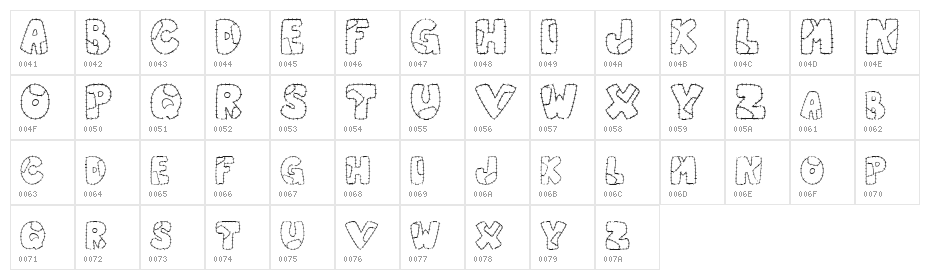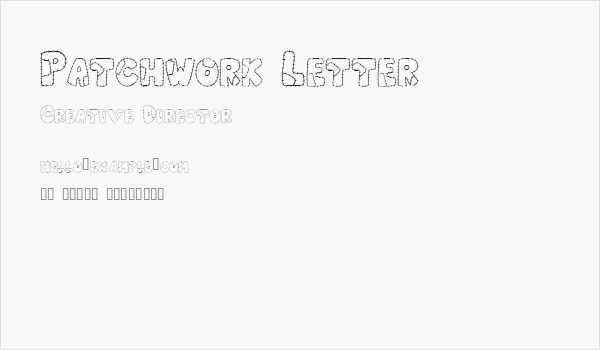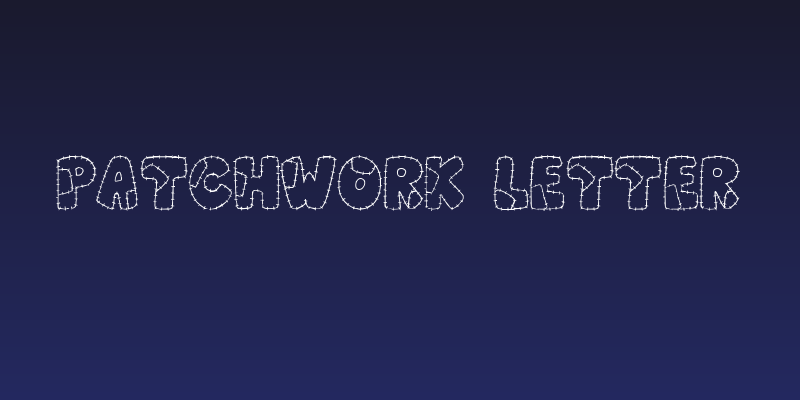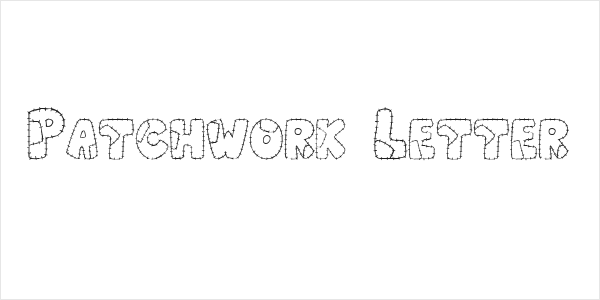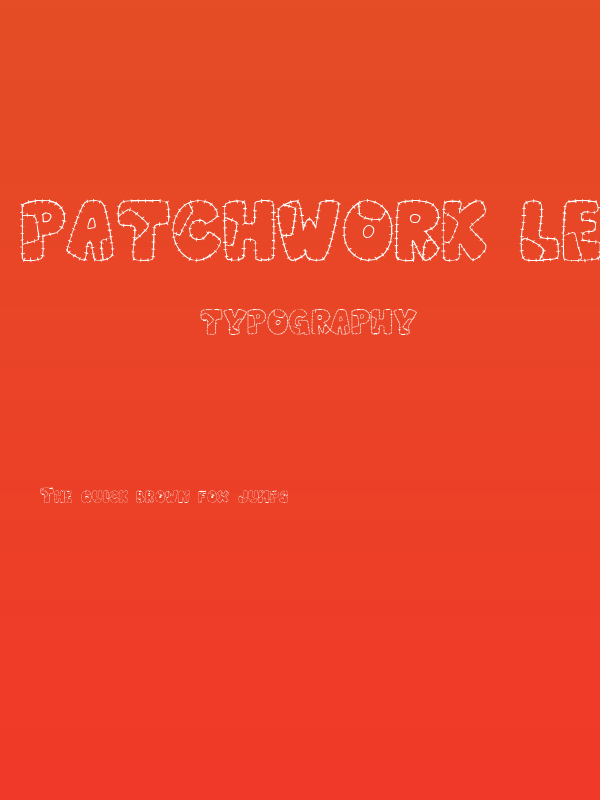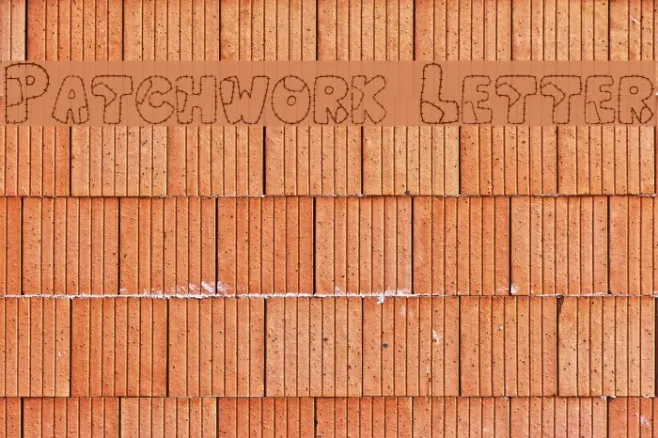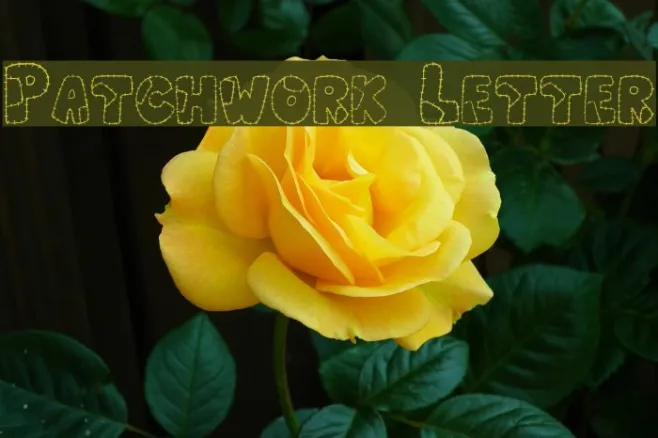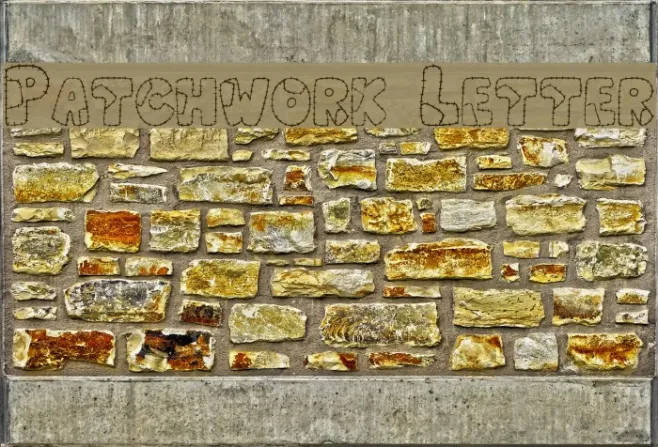
Patchwork Letter Font
Patchwork Letter Description
This font features a playful, patchwork design with each letter appearing as if stitched together from various fabric pieces. The outlines are bold and irregular, giving a handcrafted and whimsical feel. The uppercase and lowercase letters maintain a consistent style, with a slightly rounded and chunky appearance. The font lacks traditional serifs, emphasizing its decorative nature. The characters are evenly spaced, ensuring readability while maintaining the quirky aesthetic. This font is ideal for creative projects that require a fun and informal touch.
| Overall Style | Whimsical, Handcrafted |
| Proposed Projects | Ideal for children's book covers, craft projects, playful branding, and DIY-themed invitations. |